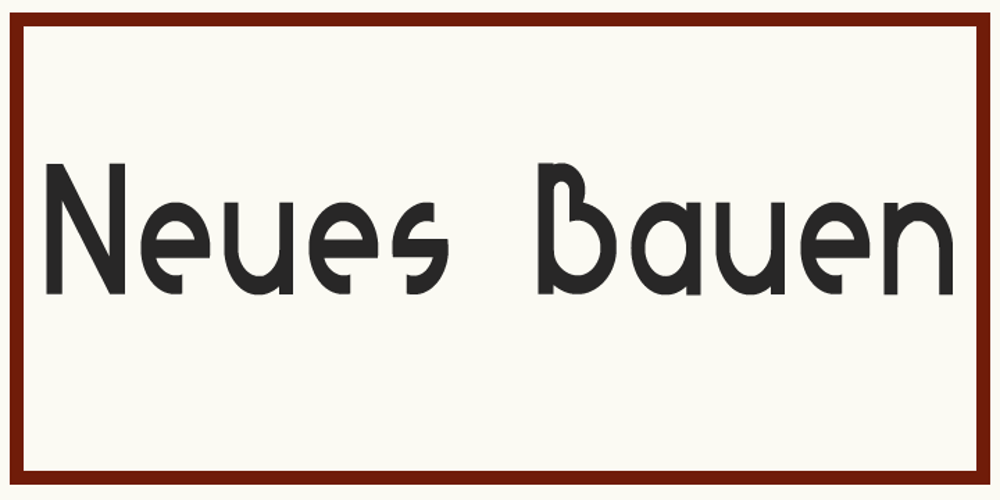
Neues Bauen
Neues Bauen font
Neues Bauen Font Family was designed by David Kerkhoff and published by Hanoded. Neues Bauen contains 8 styles and family package options. Neues Bauen is a Bauhaus inspired font with some interesting glyphs. It is slightly rounded in places, but sharp in others and it will most certainly make your designs stand out. Neues Bauen in other words, like the style that emerged in pre-war Germany, is a statement.